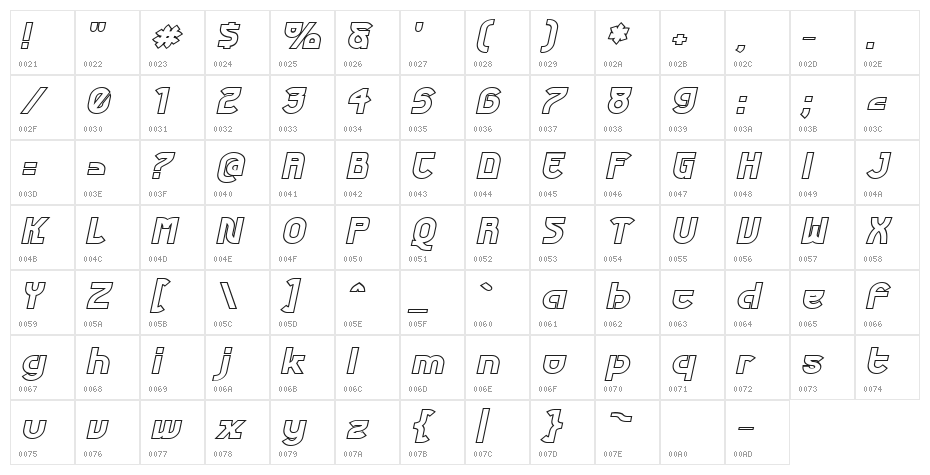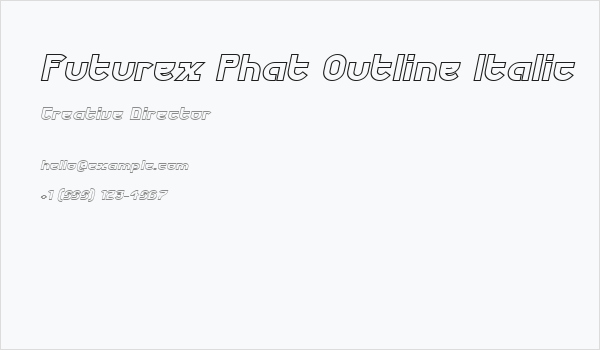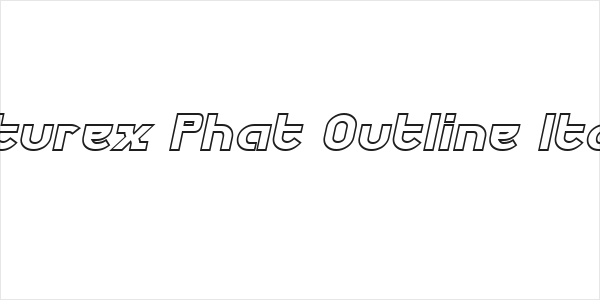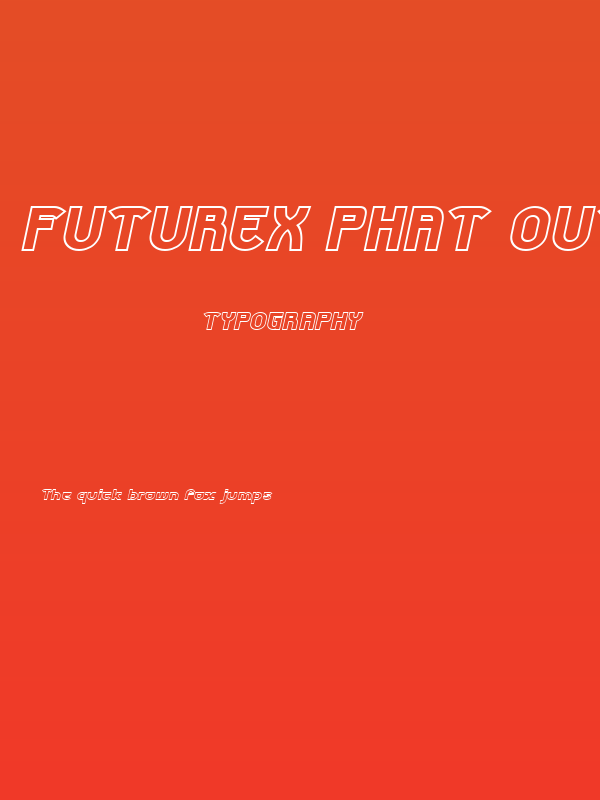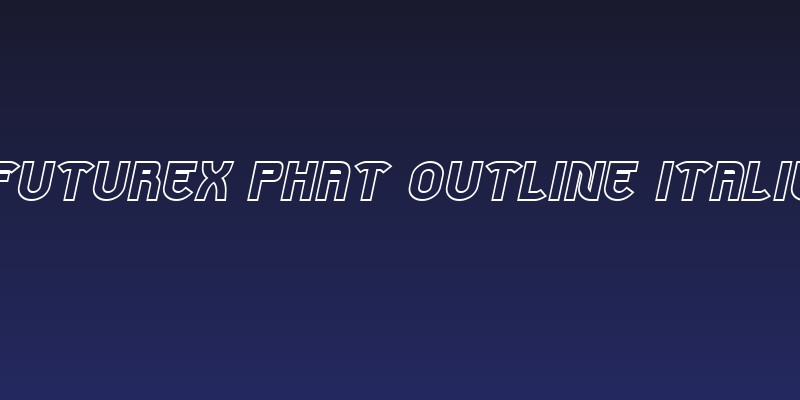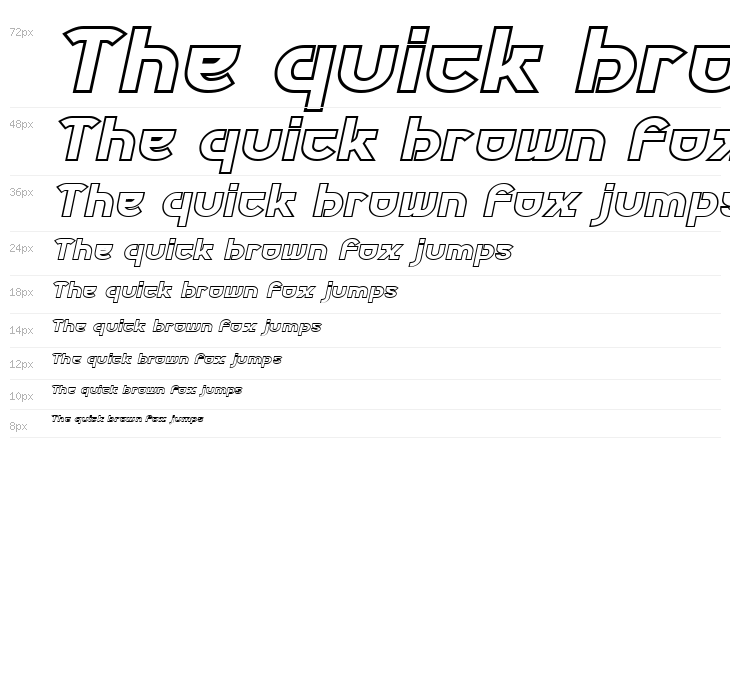
Futurex Phat Outline Italic Font
Futurex Phat Outline Italic Description
This font features a bold, outlined style with a futuristic and dynamic appearance. The characters are italicized, adding a sense of motion and modernity. The outlines are uniform, creating a clean and structured look. The uppercase and lowercase letters maintain a consistent design, with angular edges and geometric shapes. Numbers and special characters follow the same aesthetic, ensuring a cohesive visual experience. This font is ideal for projects that require a bold statement and a contemporary feel.
| Proposed Projects | Ideal for branding, posters, video game titles, and sci-fi themed designs. |